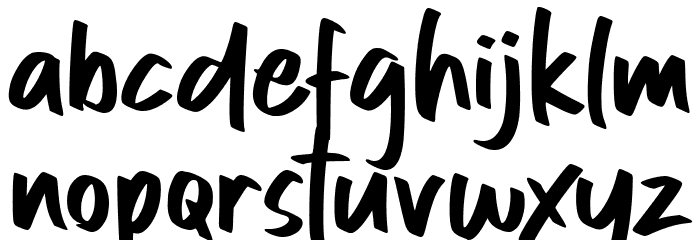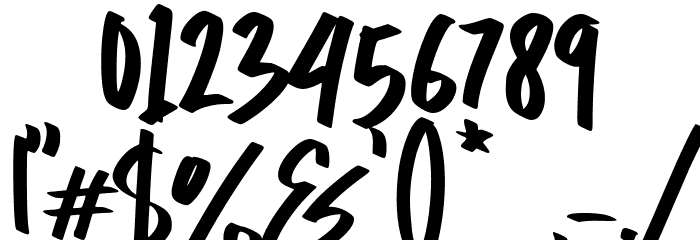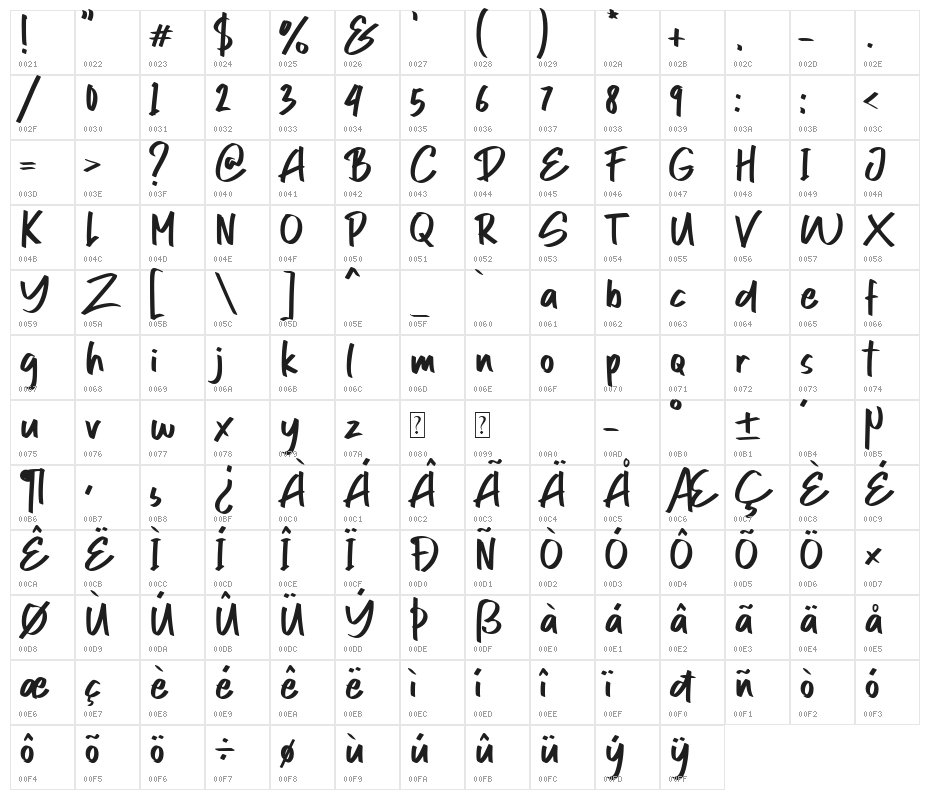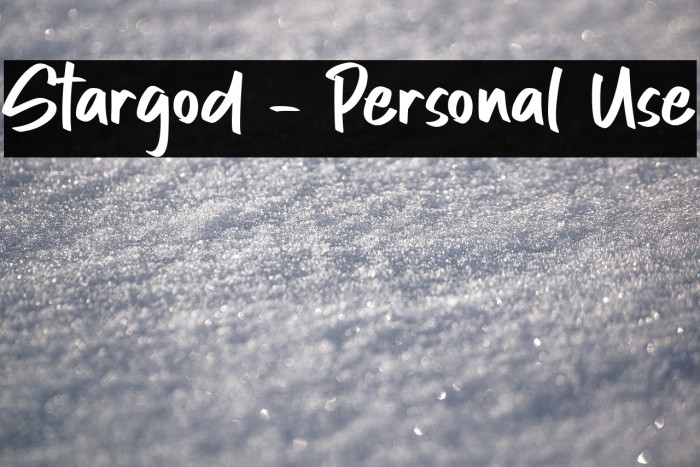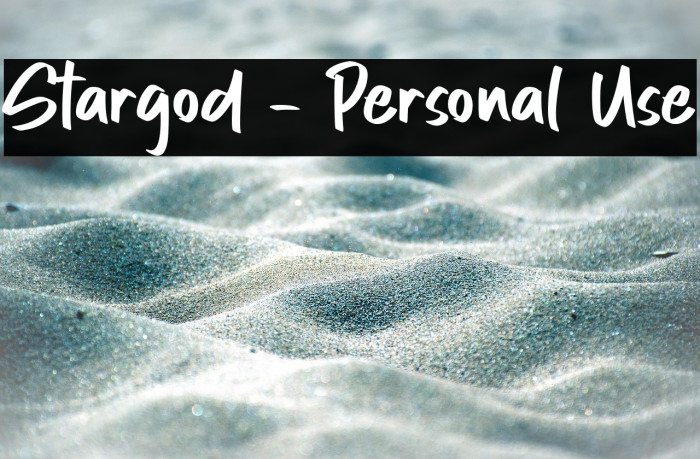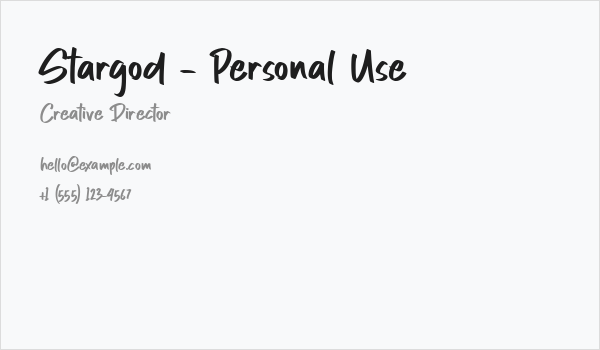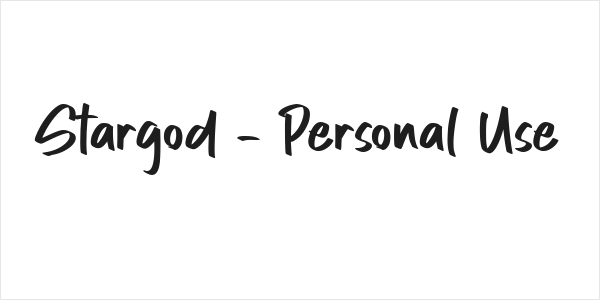
Stargod - Personal Use Font
This font features a bold, energetic style with a handwritten appearance. The letters are slightly slanted, giving a dynamic and lively feel. The strokes are thick and consistent, with a playful and informal vibe. The uppercase and lowercase letters maintain a cohesive look, while the numerals and special characters complement the overall design. The font's brush-like strokes and casual aesthetic make it suitable for projects that require a personal touch.
A bold, handwritten-style font with a dynamic and playful appearance.
- Proposed Projects: Ideal for posters, invitations, social media graphics, and branding projects that seek a lively and personal touch.